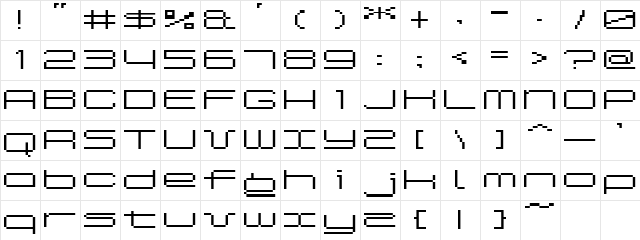
SpreadBitA10 Regular
Design Context for SpreadBitA10 Typeface
SpreadBitA10 takes a measured approach to typography — its balanced proportions and neutral character make it a reliable workhorse for both digital and print work.